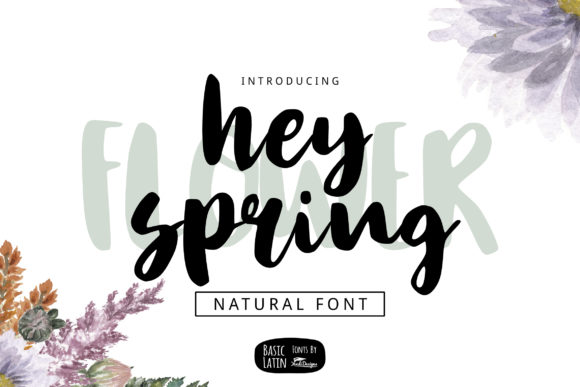
Unleash the beauty of springtime with Hey Spring Font, a captivating script font that will add a touch of magic to your Easter and spring-themed designs. Step into a world of blooming flowers, chirping birds, and pastel colors as this font dances across your digital canvas.
Hey Spring is the perfect choice for creating eye-catching logos, heartwarming invitations, whimsical posters, and stunning social media graphics that will leave a lasting impression. Its swashes and alternates bring an element of playfulness and uniqueness to your designs, making them stand out from the crowd.
With Hey Spring Font, you'll have the power to transform your words into works of art. Its charming curves and delicate flourishes will add a personal touch to your projects, whether you're a seasoned designer or just starting out. Embrace the beauty of the season and let Hey Spring Font be your creative companion.